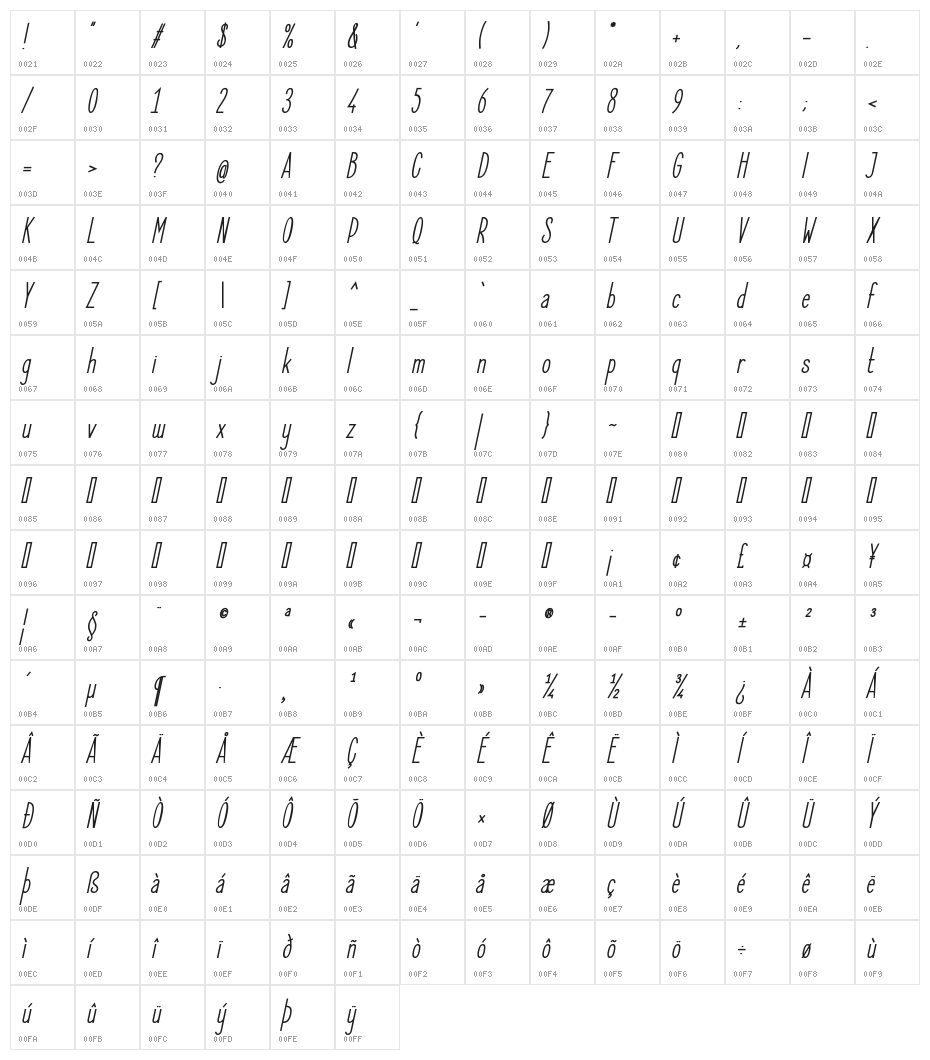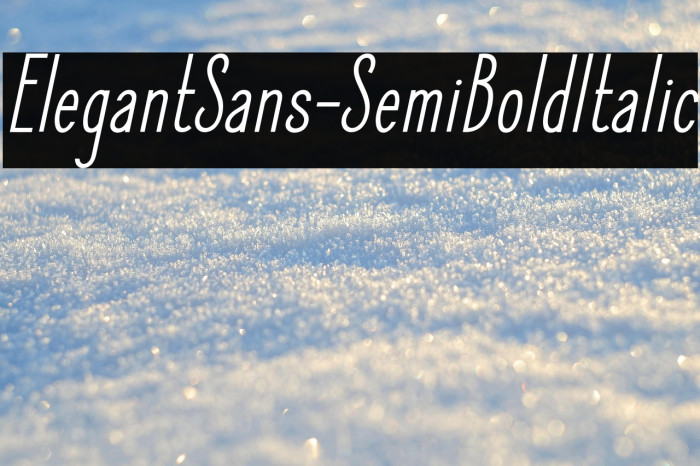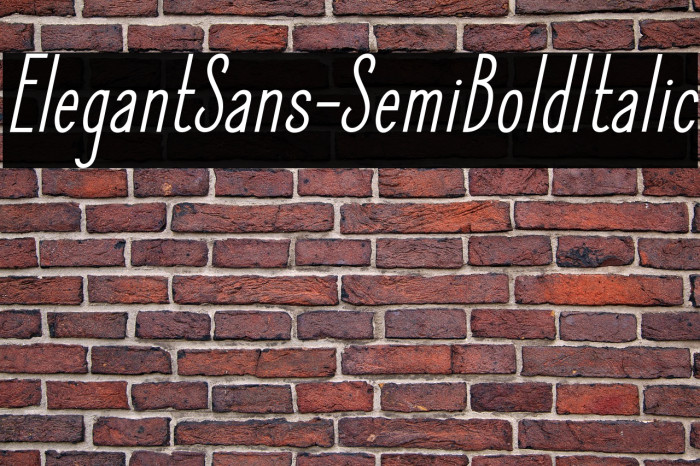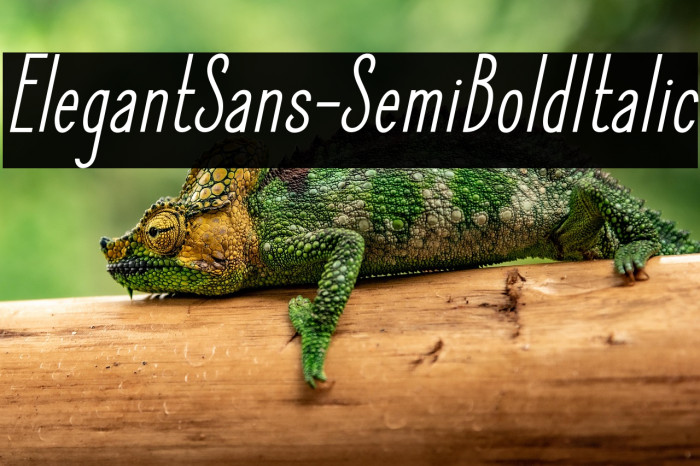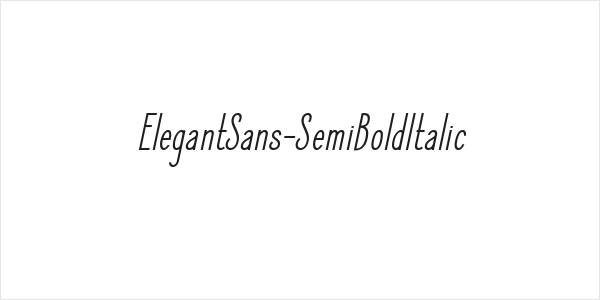
ElegantSans-SemiBoldItalic Font
ElegantSans-SemiBoldItalic Description
This font exhibits a sleek and modern sans-serif style with a semi-bold weight that adds a touch of elegance and sophistication. The italicized form gives it a dynamic and flowing appearance, making it suitable for both contemporary and classic designs. The uppercase and lowercase letters are well-proportioned, with a slight slant that enhances readability while maintaining a stylish edge. The numerals are clear and distinct, and the special characters are designed to complement the overall aesthetic. This font's clean lines and subtle curves make it versatile for various design applications.
Proposed ProjectsIdeal for branding, editorial design, advertising, and web design projects.